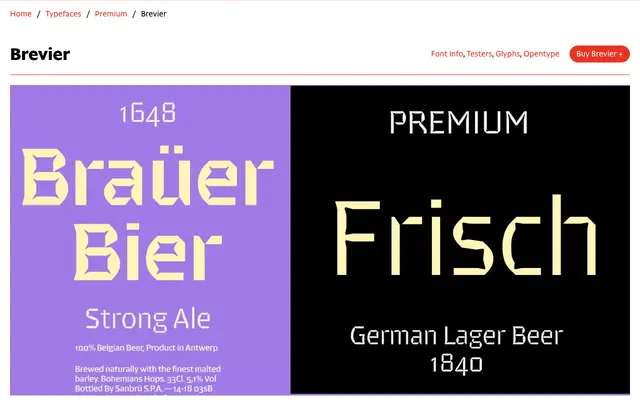
Brevier
CAST · Riccardo Olocco · 2007
A compact humanist sans by Riccardo Olocco, engineered for legibility at extremely small sizes with deep ink traps and open junctures that read as distinctive design features at larger settings.
Designed specifically for small and very small type — packaging, pharmaceutical leaflets, instruction booklets — Brevier functions reliably down to 3 points under adverse printing conditions. Its apparently geometric forms carry Renaissance humanist proportions underneath: generous x-height, open apertures and slightly modulated strokes. Ink traps at internal angles and open junctures compensate for ink spread at small sizes, and these structural choices become striking formal features when the type is set large. Available in static and variable font formats.
Apparently geometric in construction but with Renaissance humanist characteristics, including modulated strokes, generous x-height and open apertures — placing it firmly in the humanist sans tradition despite its compact, functional purpose.